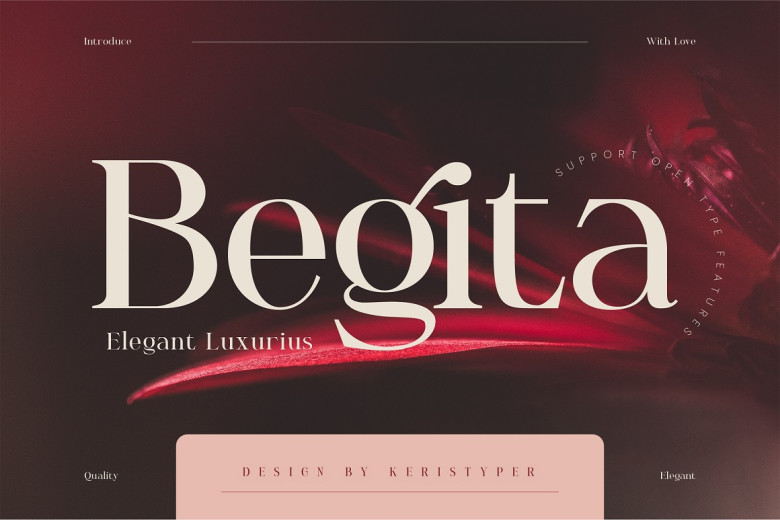
Begita Font
We proudly bring you the Begita font, a perfect synergy of elegance and luxury. Each of its gentle strokes and delicate curvestestify to the refinement and opulence in every character.
With its timeless elegance and exquisite aesthetics, Begita font is a must-have for those photographs that appreciate the finer things in life. It makes your branding inegal among competitors, it ischic. Forever the carefully balanced combination of temperamental and rational.
Begita Elegant Serif Font